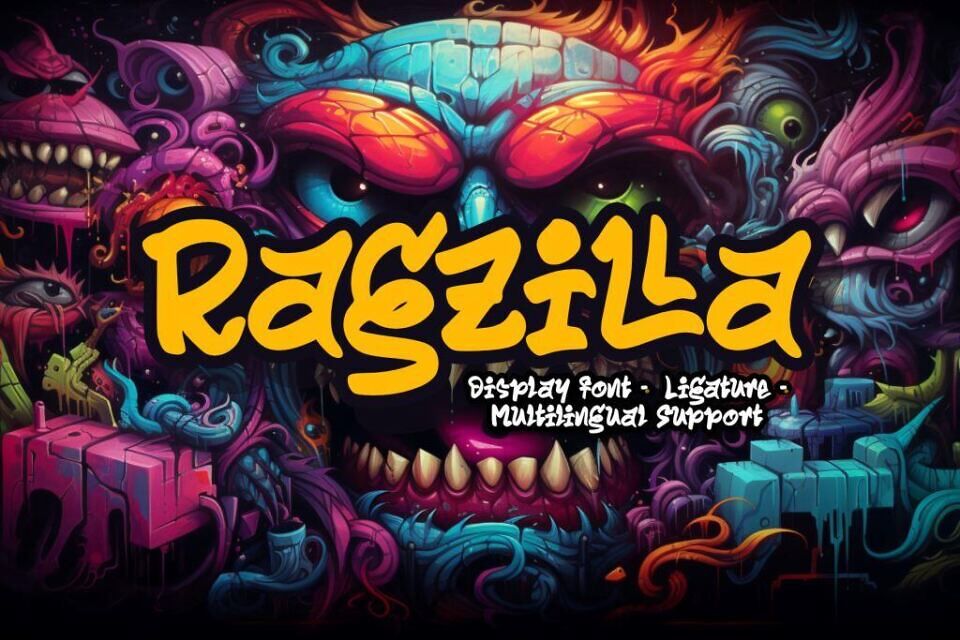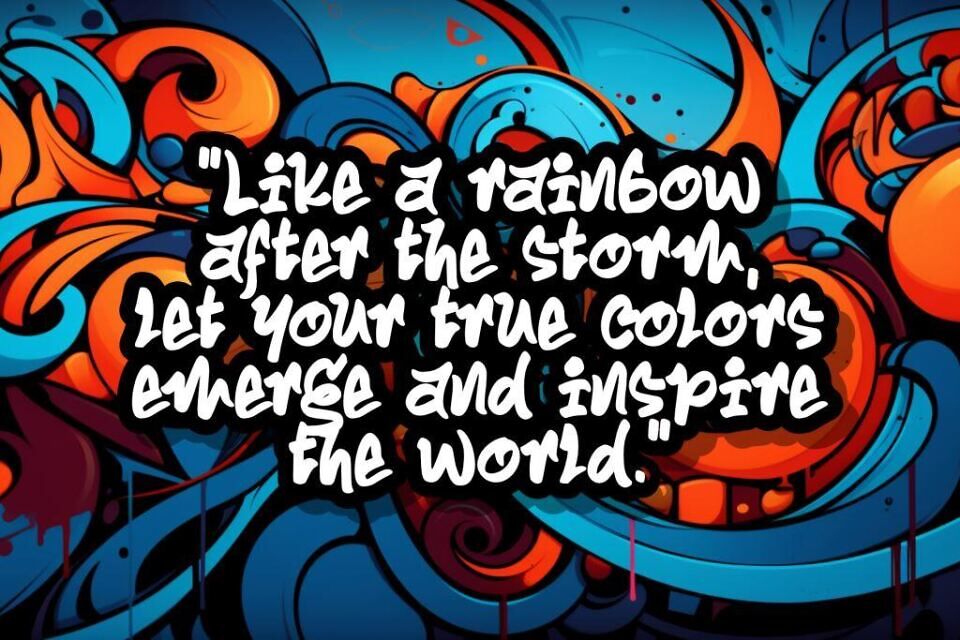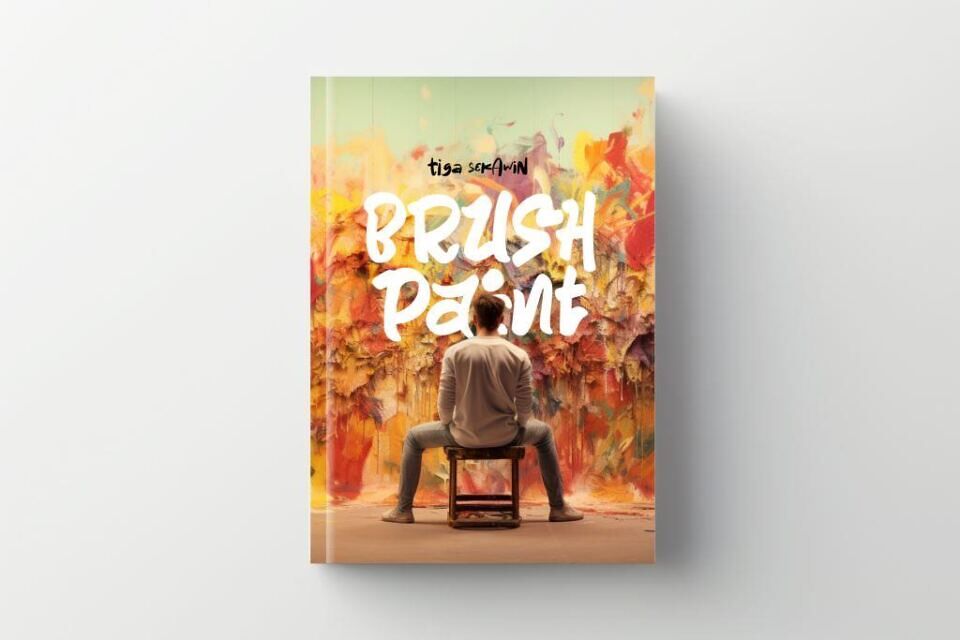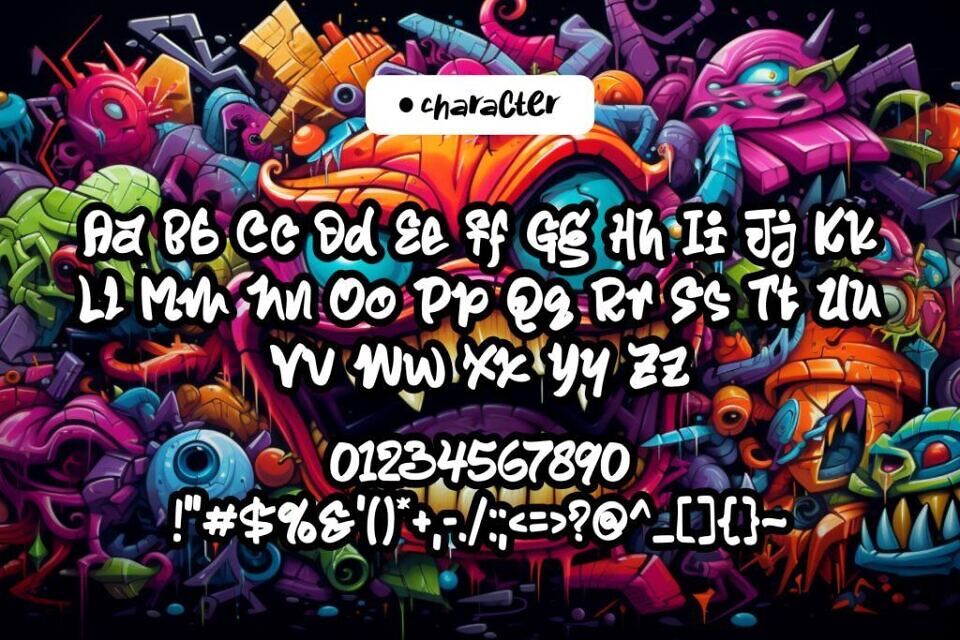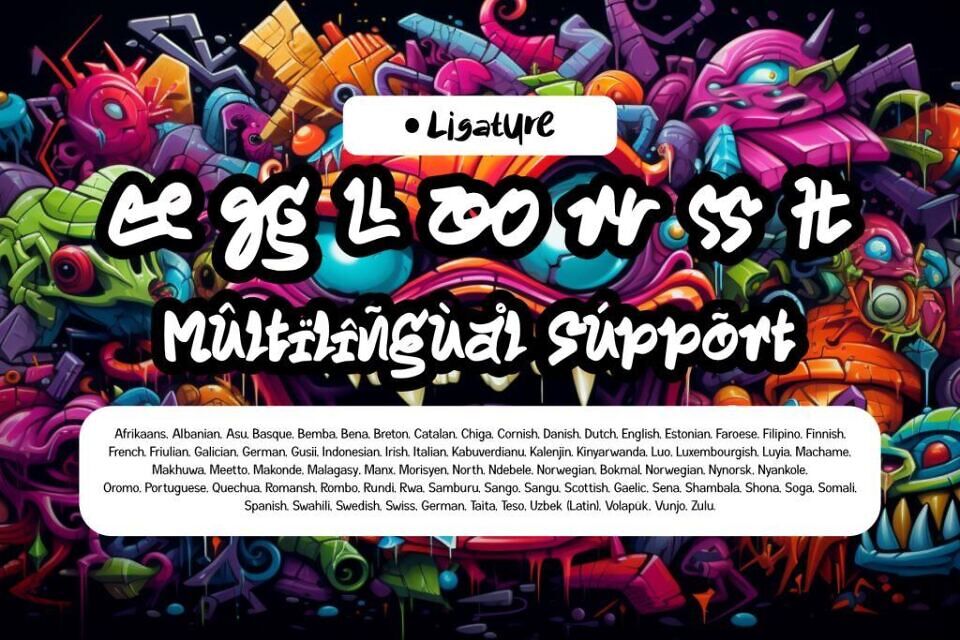
Ragzilla is a bold font with a thick brush style inspired by graffiti art. Combining the daring and energy of street graffiti, this font creates a striking and expressive look for eye-catching display designs.
With a strong brush and sharp lines, Ragzilla produces a bold effect that exudes strength and prominence. Each letter is filled with wild and free-spirited character, resembling brushstrokes used by graffiti artists working on city walls.